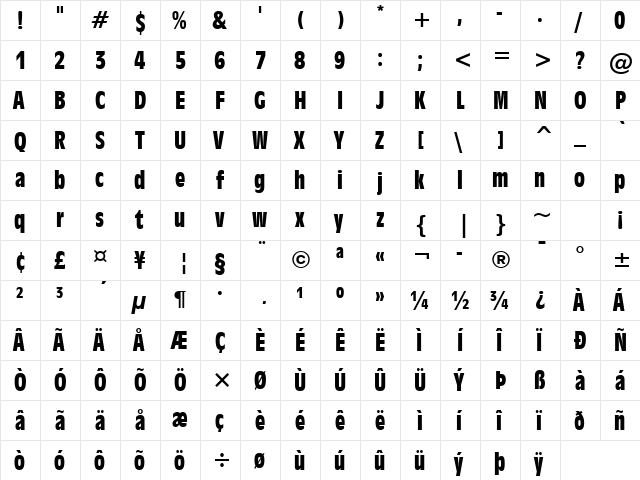
Incised901 BdCn BT Bold
Design Context for Incised901 BdCn BT Typeface
Incised901 BdCn BT takes a measured approach to typography — its balanced proportions and neutral character make it a reliable workhorse for both digital and print work. The heavy weight commands attention and anchors typographic hierarchies.
Pro Tip: Use Incised901 BdCn BT in both headline and body roles to test its range before committing to a single application.